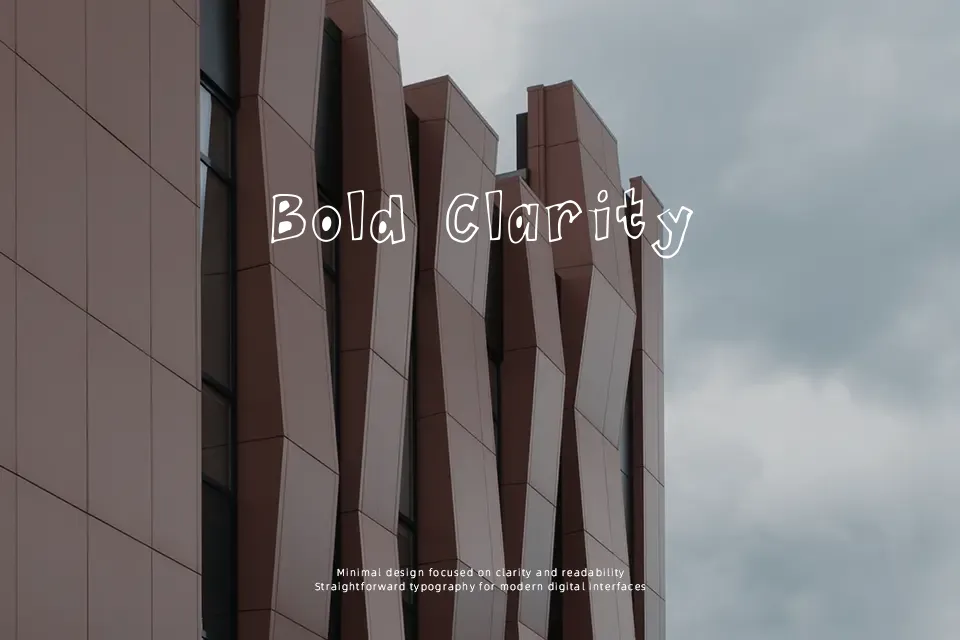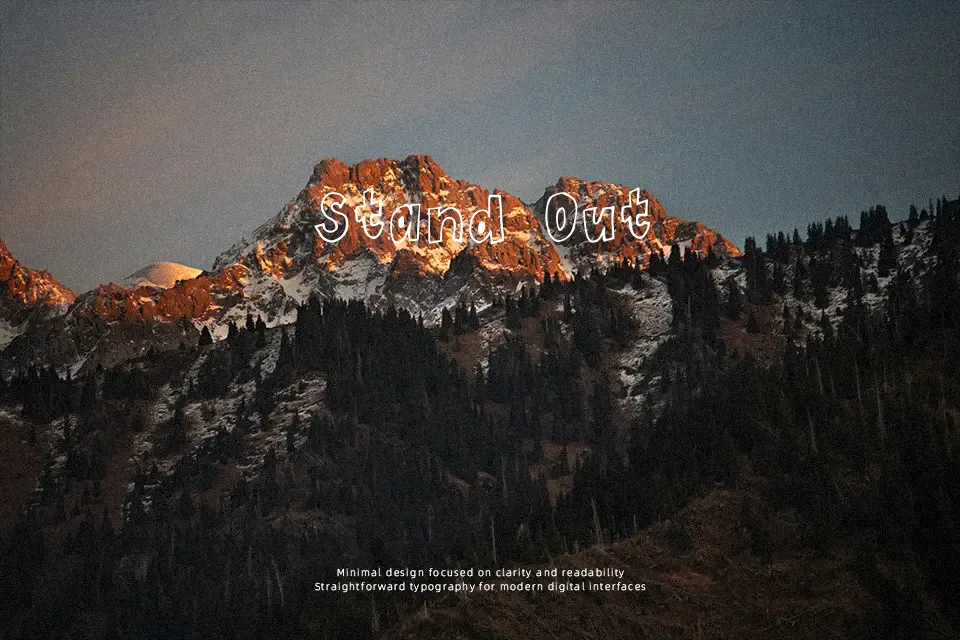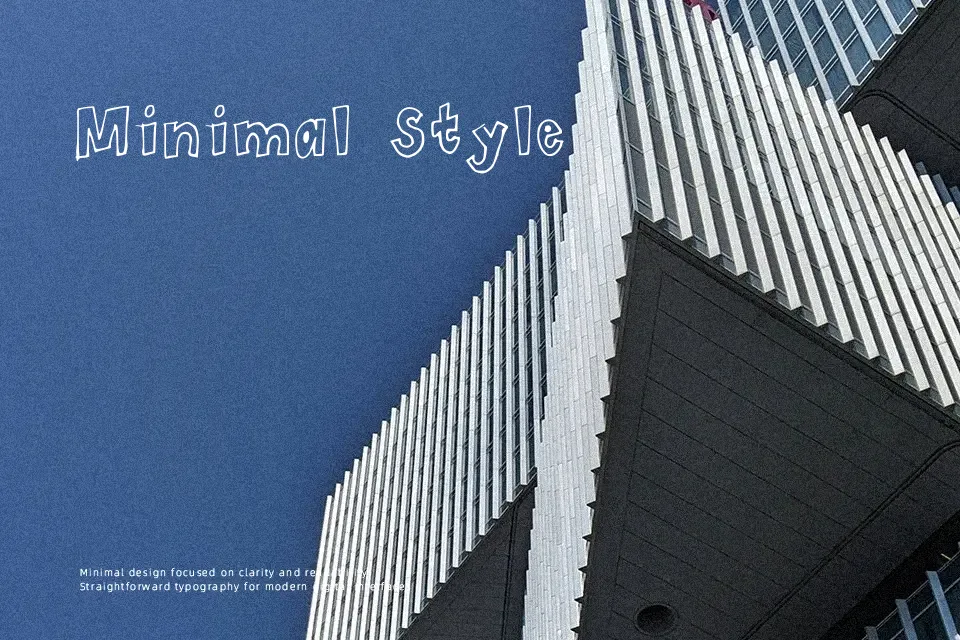
Spaghetti Font
Spaghetti Font presents an animated aesthetic defined by continuous, tubular strokes and looping terminals that mimic coiled pasta noodles. The letterforms maintain uniform stroke thickness throughout, paired with relaxed proportions and generous internal counters that preserve character recognition at medium scale. Generous letter spacing prevents overlapping loops from cluttering display headers, making the design well suited for culinary branding, youth apparel graphics, and cartoon title cards. However, the intricate winding forms reduce legibility when set in continuous body text. Intricate flourishes become difficult to discern at small caption sizes, so the typeface functions best in brief headline treatments.
Best For: food packaging,children’s book covers,restaurant signage,cartoon title cards
Not Ideal For: long paragraph text,mobile user interfaces,corporate reports,small caption labels
Perfect for headline, kids, and logo, with a creative and cartoon style.